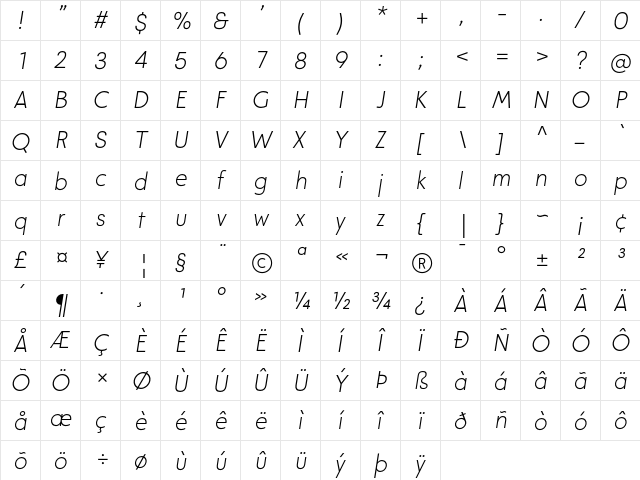
Modeco Trial ExtLt Obl Italic
Design Context for Modeco Trial ExtLt Obl Typeface
Modeco Trial ExtLt Obl takes a measured approach to typography — its balanced proportions and neutral character make it a reliable workhorse for both digital and print work. The dynamic lean of this cut emphasises speed and emphasis in any layout.